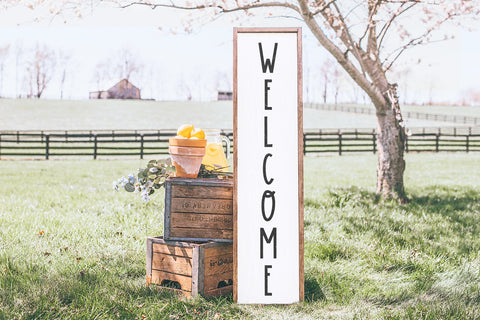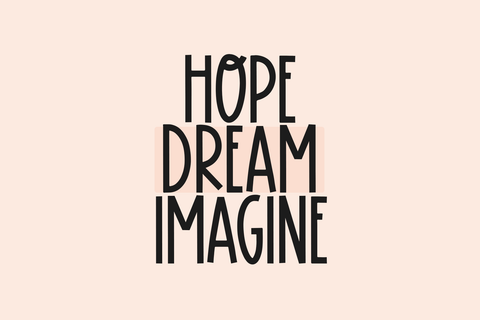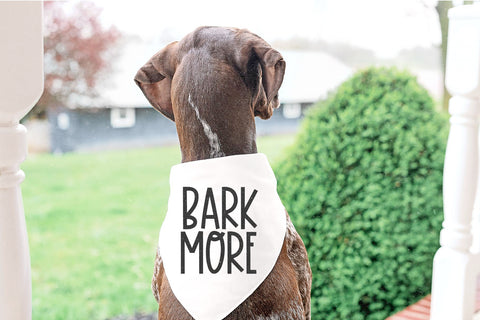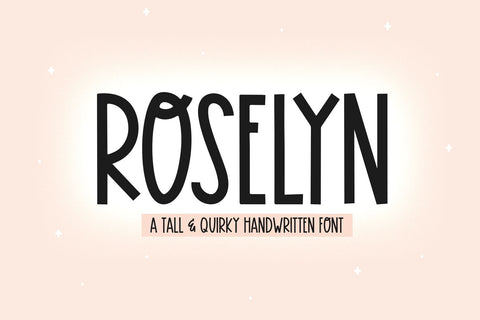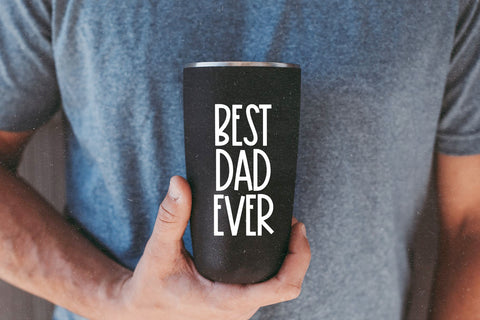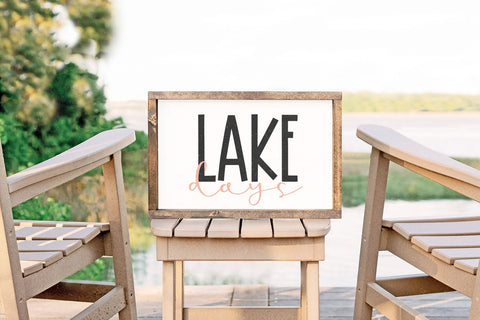
Roselyn - Fun Handwritten Font
Roselyn is a fun + quirky handwritten font!
This font is perfect for crafts, svg designs, stickers, procreate projects, shirts, mugs and more!